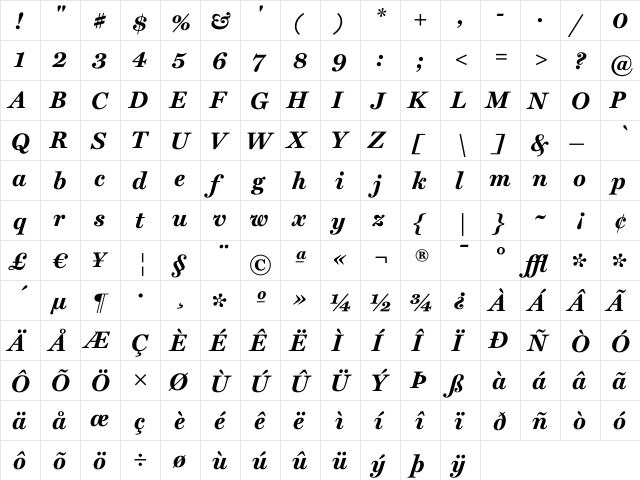
Miller Text Bold Italic Font Preview
Design Context for Miller Typeface
Miller takes a measured approach to typography — its balanced proportions and neutral character make it a reliable workhorse for both digital and print work. Its italic angle brings a sense of urgency and motion to the letterforms. The heavy weight commands attention and anchors typographic hierarchies.
Pro Tip: Try Miller for annotation and caption copy alongside an upright companion — the contrast in angle creates a dynamic but ordered typographic system.